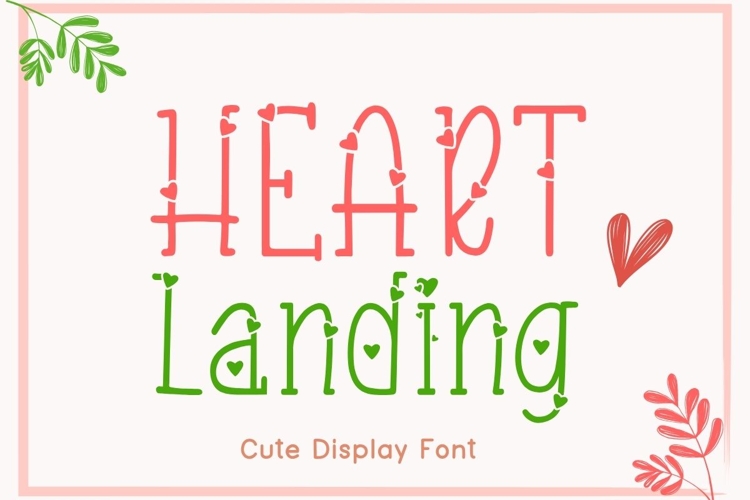
Heart Landing is a cute and romantic display font featuring playful heart details throughout the letterforms. Its tall, whimsical style adds a sweet handmade touch to Valentine’s Day designs, love quotes, greeting cards, wedding projects, and romantic crafts.
This decorative font is perfect for creating eye-catching titles and charming typography for cards, invitations, shirts, mugs, tote bags, stickers, social media graphics, and more.